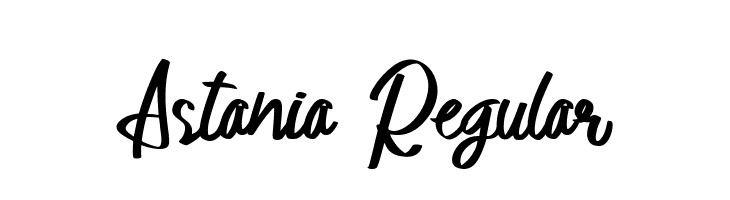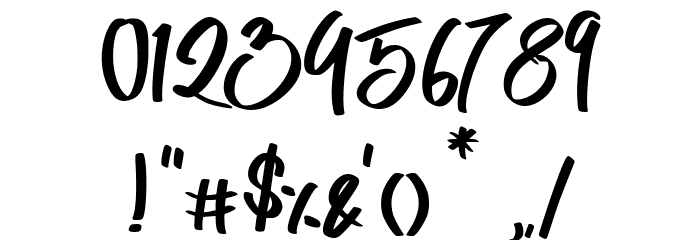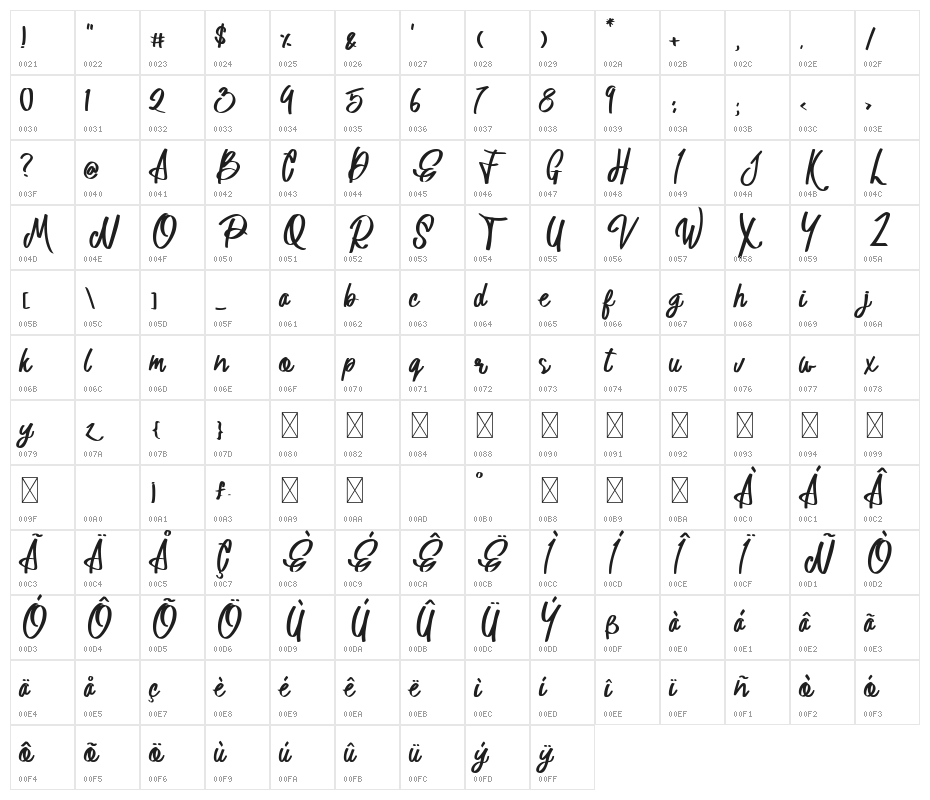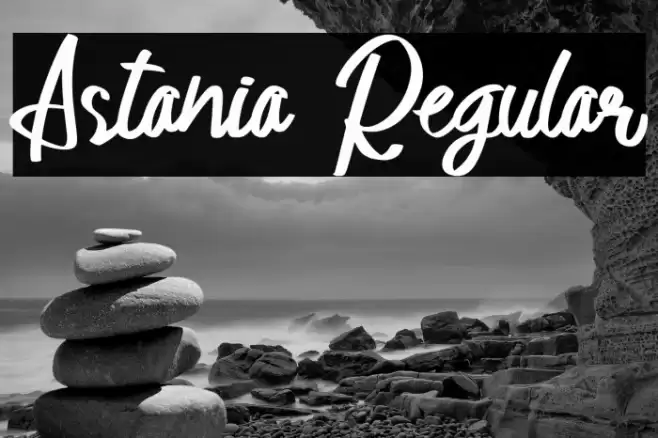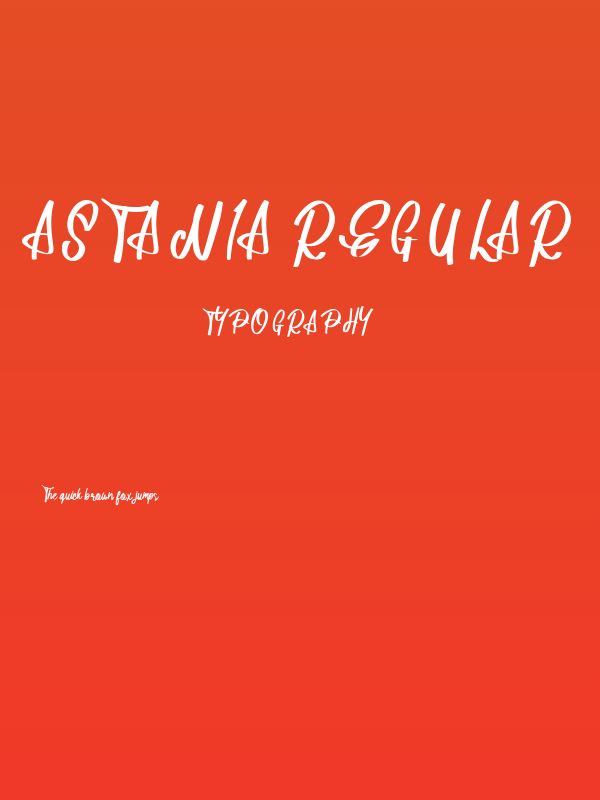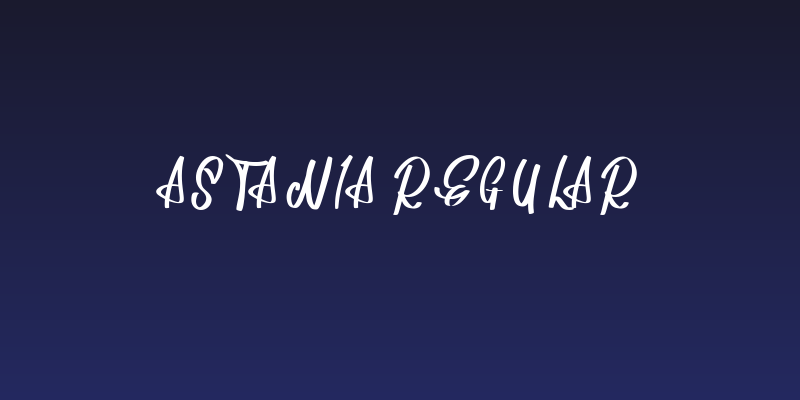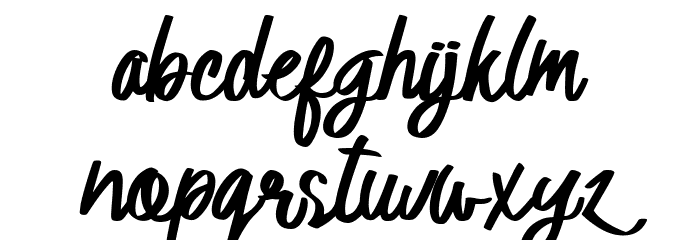
Astania Regular Font
Astania Regular Description
This font exhibits a dynamic and flowing script style, characterized by its elegant and cursive letterforms. The uppercase letters are bold and expressive, with sweeping curves and a sense of movement that adds a touch of sophistication. The lowercase letters maintain a consistent flow, complementing the uppercase with their smooth and connected strokes. Numbers and special characters are crafted with the same attention to detail, ensuring a cohesive look across all elements. The overall design is both stylish and legible, making it suitable for a variety of creative applications.
| Proposed Projects | Ideal for wedding invitations, branding projects, greeting cards, and elegant packaging designs. |